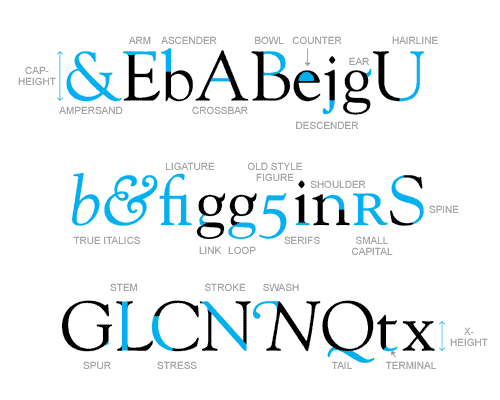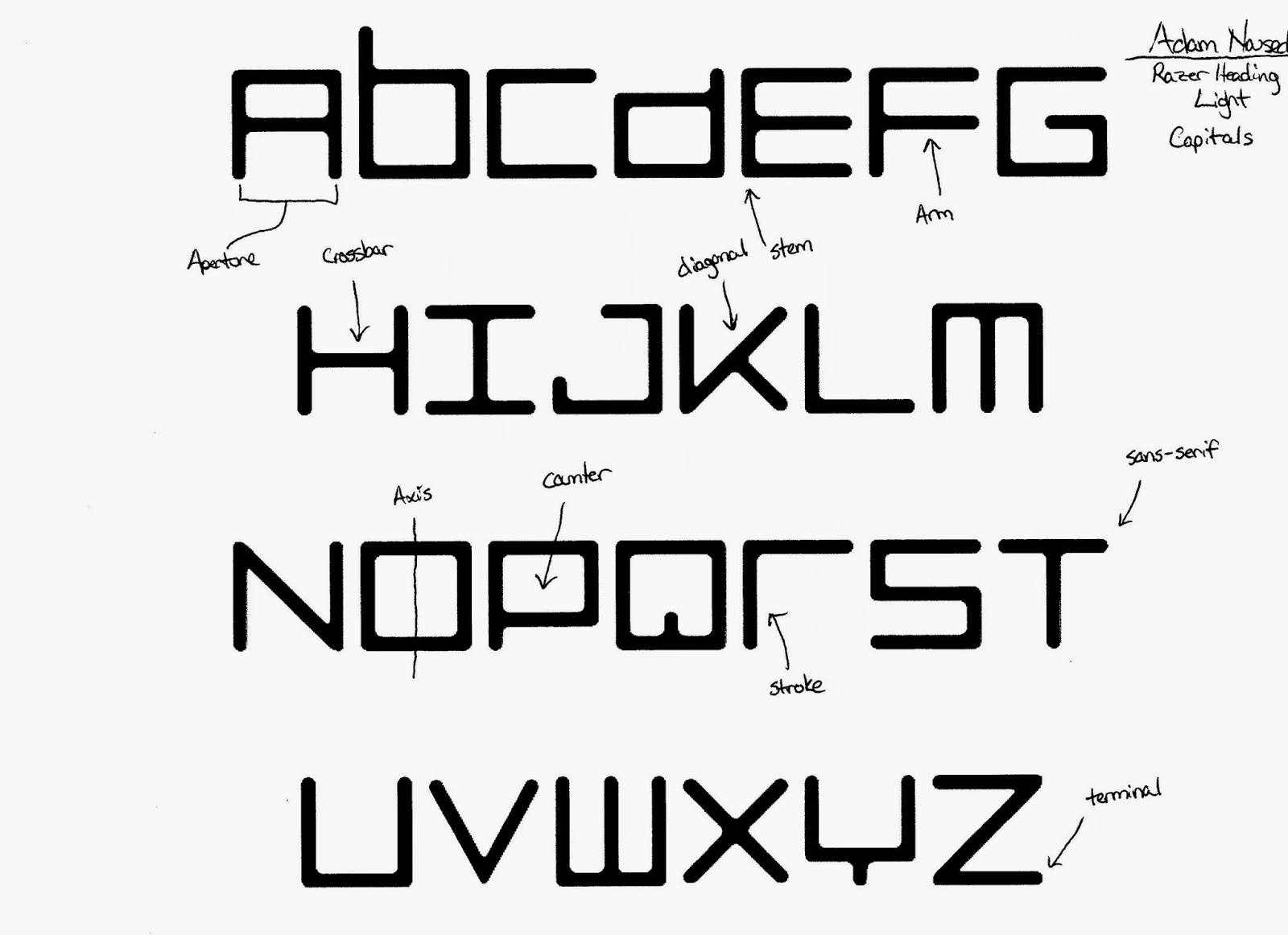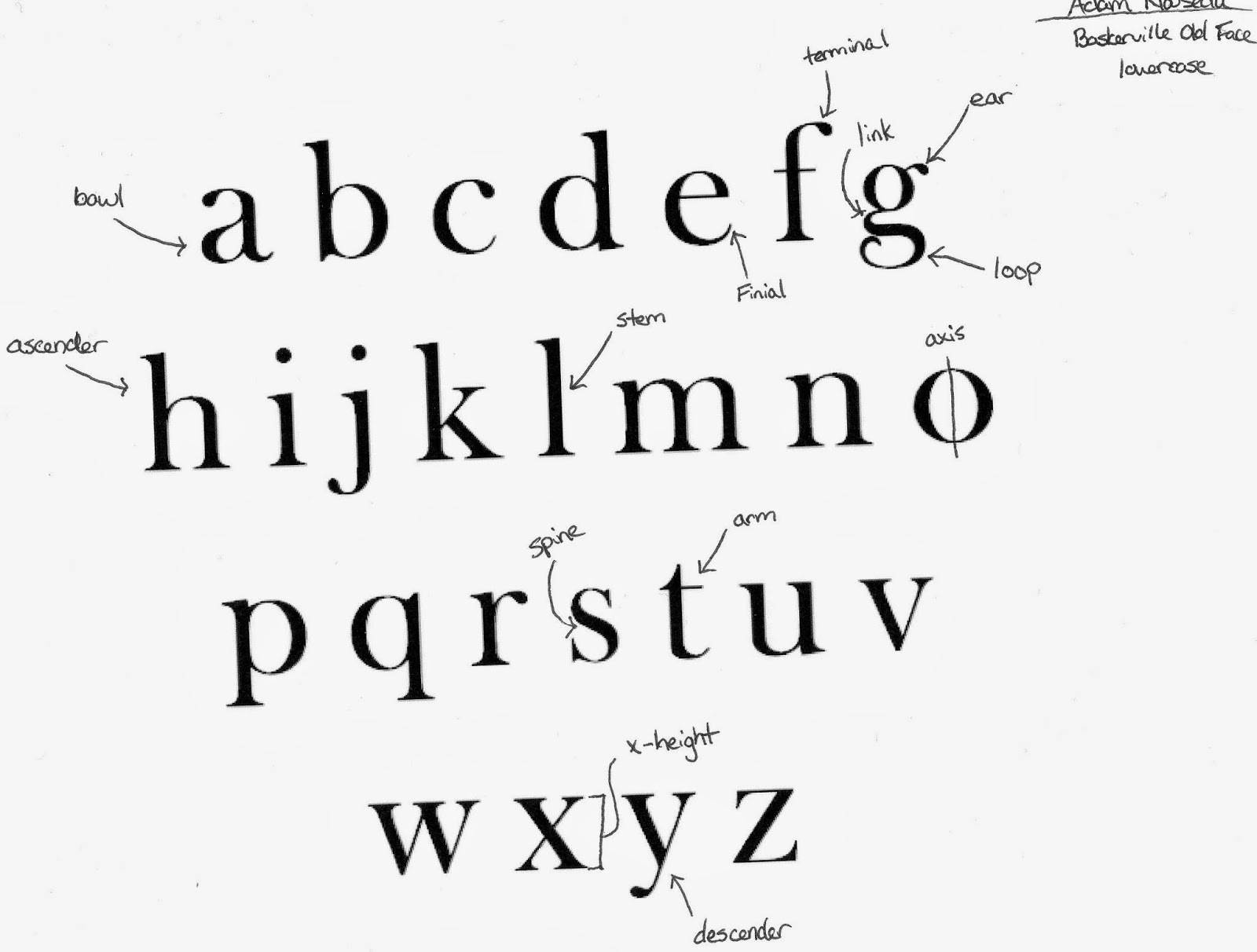
23+ Serif Font Anatomy Potoshop. Serif typefaces are among some of the oldest modern typefaces. A visual guide to the anatomy of typography infographic. In font anatomy, a character's arm is the part of the letter that reaches up or out. Not the answer you're looking for? Serifs come in two styles: Now that you understand each font what one do you use? Many serif fonts are beautifully designed and add a distinctive touch wherever. Strokes may be straight, as in k l v w x z, or curved. The serifs make it easy for the eye to travel over the text. Fonts with serifs are particularly useful for large blocks of text. It's attached on one end and free on the other and if a font has a swash, it will usually be a serif font that's also italicized. The strokes are the components of a letterform. Brackets are the supportive curves which connect the serif. How do you tell one typeface from another? Typeface anatomy describes the graphic elements that make up letters in a typeface.
Typedia Learn Anatomy Of A Typeface. Not the answer you're looking for? How do you tell one typeface from another? Strokes may be straight, as in k l v w x z, or curved. Typeface anatomy describes the graphic elements that make up letters in a typeface. Serifs come in two styles: Now that you understand each font what one do you use? Serif typefaces are among some of the oldest modern typefaces. It's attached on one end and free on the other and if a font has a swash, it will usually be a serif font that's also italicized. A visual guide to the anatomy of typography infographic. Many serif fonts are beautifully designed and add a distinctive touch wherever. The strokes are the components of a letterform. Brackets are the supportive curves which connect the serif. Fonts with serifs are particularly useful for large blocks of text. The serifs make it easy for the eye to travel over the text. In font anatomy, a character's arm is the part of the letter that reaches up or out.
Now that you understand each font what one do you use? Classifying fonts can help you decide which style to choose and what combinations to use for your next project. Serif typefaces are among some of the oldest modern typefaces. Messy anatomy is the character of this font which makes this font. It was designed to be metrically. Many serif fonts are beautifully designed and add a distinctive touch wherever. The anatomy of typography involves a bit of both worlds:
Fonts with serifs are particularly useful for large blocks of text. Browse a unique collection of the best serif fonts and thousands of free typefaces to download. Now that you understand each font what one do you use? Typeface anatomy describes the graphic elements that make up letters in a typeface. Fonts with serifs are particularly useful for large blocks of text. See more ideas about typography design, font anatomy, graphic design typography. See more ideas about font anatomy, type anatomy, anatomy of typography. Classifying fonts can help you decide which style to choose and what combinations to use for your next project. While serif fonts are known to be more traditional, sans serif fonts bring that much needed the fonts are all listed as free to use for personal and commercial uses, so let your creativity run wild. It was designed to be metrically. Not the answer you're looking for? The serifs make it easy for the eye to travel over the text. Hellwolf typeface is a serif font designed for halloween. Strokes may be straight, as in k l v w x z, or curved. When text is rendered by a computer, sometimes there will be characters in the text that can not be displayed, because no font that supports them is available to the computer. The decorative stroke that defines serif fonts gives each individual sans serif fonts have been known by many other names, including gothic: These serif fonts are typically used in newspapers, because they make reading quick and easy. Grey's anatomy is an american medical drama television series that premiered on march 27, 2005, on american broadcasting company (abc). Browse by alphabetical listing, by style, by author or by popularity. 1 2 3 4 5 6 7 8 9 10. Browse other questions tagged fonts typography or ask your own question. Archive of freely downloadable fonts. Every font is free to download! ✓ click to find the best 4 free fonts in the anatomy style. Bonange basic serif font is a bold and elegant serif font. The strokes are the components of a letterform. This font is equipped with uppercase, lowercase, numbers, punctuation, and several variations on each character. Serifs come in two styles: Messy anatomy is the character of this font which makes this font. A visual guide to the anatomy of typography infographic. Font anatomy is a highly captivating part of typography.
Type Anatomy A Visual Guide To The Parts Of Letters. A visual guide to the anatomy of typography infographic. The serifs make it easy for the eye to travel over the text. Strokes may be straight, as in k l v w x z, or curved. Serif typefaces are among some of the oldest modern typefaces. Brackets are the supportive curves which connect the serif. Fonts with serifs are particularly useful for large blocks of text. It's attached on one end and free on the other and if a font has a swash, it will usually be a serif font that's also italicized. In font anatomy, a character's arm is the part of the letter that reaches up or out. How do you tell one typeface from another? Many serif fonts are beautifully designed and add a distinctive touch wherever. The strokes are the components of a letterform. Serifs come in two styles: Now that you understand each font what one do you use? Not the answer you're looking for? Typeface anatomy describes the graphic elements that make up letters in a typeface.
50 Anatomy History Of Type Ideas In 2020 Typography Lettering Typography Design. Now that you understand each font what one do you use? A visual guide to the anatomy of typography infographic. In font anatomy, a character's arm is the part of the letter that reaches up or out. Typeface anatomy describes the graphic elements that make up letters in a typeface. Not the answer you're looking for? Strokes may be straight, as in k l v w x z, or curved. Fonts with serifs are particularly useful for large blocks of text. It's attached on one end and free on the other and if a font has a swash, it will usually be a serif font that's also italicized. The serifs make it easy for the eye to travel over the text. How do you tell one typeface from another? Serif typefaces are among some of the oldest modern typefaces. Serifs come in two styles: Brackets are the supportive curves which connect the serif. The strokes are the components of a letterform. Many serif fonts are beautifully designed and add a distinctive touch wherever.
Font anatomy is a highly captivating part of typography.
50 Anatomy History Of Type Ideas In 2020 Typography Lettering Typography Design. Serifs come in two styles: It's attached on one end and free on the other and if a font has a swash, it will usually be a serif font that's also italicized. The strokes are the components of a letterform. A visual guide to the anatomy of typography infographic. Strokes may be straight, as in k l v w x z, or curved. Typeface anatomy describes the graphic elements that make up letters in a typeface. Fonts with serifs are particularly useful for large blocks of text. Many serif fonts are beautifully designed and add a distinctive touch wherever. Serif typefaces are among some of the oldest modern typefaces. How do you tell one typeface from another? The serifs make it easy for the eye to travel over the text. Now that you understand each font what one do you use? Brackets are the supportive curves which connect the serif. Not the answer you're looking for? In font anatomy, a character's arm is the part of the letter that reaches up or out.
Tipografi Aplikatif Anatomi Huruf Ir Kamil Rusdi Abdullah M Si Modul Ke 04fakultas Fakultas Desain Dan Seni Kreatif Program Studi Desain Produk Pdf Download Gratis. Brackets are the supportive curves which connect the serif. Not the answer you're looking for? Fonts with serifs are particularly useful for large blocks of text. It's attached on one end and free on the other and if a font has a swash, it will usually be a serif font that's also italicized. Serifs come in two styles: The strokes are the components of a letterform. Many serif fonts are beautifully designed and add a distinctive touch wherever. The serifs make it easy for the eye to travel over the text. Now that you understand each font what one do you use? Typeface anatomy describes the graphic elements that make up letters in a typeface. Strokes may be straight, as in k l v w x z, or curved. In font anatomy, a character's arm is the part of the letter that reaches up or out. Serif typefaces are among some of the oldest modern typefaces. How do you tell one typeface from another? A visual guide to the anatomy of typography infographic.
Brackets are the supportive curves which connect the serif.
Anatomy Of A Character Fonts Com Fonts Com. In font anatomy, a character's arm is the part of the letter that reaches up or out. How do you tell one typeface from another? Now that you understand each font what one do you use? Strokes may be straight, as in k l v w x z, or curved. A visual guide to the anatomy of typography infographic. Not the answer you're looking for? Fonts with serifs are particularly useful for large blocks of text. The serifs make it easy for the eye to travel over the text. Serif typefaces are among some of the oldest modern typefaces. Brackets are the supportive curves which connect the serif. It's attached on one end and free on the other and if a font has a swash, it will usually be a serif font that's also italicized. Many serif fonts are beautifully designed and add a distinctive touch wherever. The strokes are the components of a letterform. Typeface anatomy describes the graphic elements that make up letters in a typeface. Serifs come in two styles:
Type Anatomy A Visual Guide To The Parts Of Letters. It's attached on one end and free on the other and if a font has a swash, it will usually be a serif font that's also italicized. How do you tell one typeface from another? A visual guide to the anatomy of typography infographic. Brackets are the supportive curves which connect the serif. Fonts with serifs are particularly useful for large blocks of text. Many serif fonts are beautifully designed and add a distinctive touch wherever. Strokes may be straight, as in k l v w x z, or curved. Typeface anatomy describes the graphic elements that make up letters in a typeface. Serif typefaces are among some of the oldest modern typefaces. In font anatomy, a character's arm is the part of the letter that reaches up or out. Now that you understand each font what one do you use? Not the answer you're looking for? Serifs come in two styles: The strokes are the components of a letterform. The serifs make it easy for the eye to travel over the text.
Classifying fonts can help you decide which style to choose and what combinations to use for your next project. Many serif fonts are beautifully designed and add a distinctive touch wherever. When text is rendered by a computer, sometimes there will be characters in the text that can not be displayed, because no font that supports them is available to the computer. Download free serif fonts for commercial and personal use. An educational poster intended to highlight the anatomical structure of a typeface. In font anatomy, a character's arm is the part of the letter that reaches up or out. Brackets are the supportive curves which connect the serif. While serif fonts are known to be more traditional, sans serif fonts bring that much needed the fonts are all listed as free to use for personal and commercial uses, so let your creativity run wild. Bonange basic serif font is a bold and elegant serif font. Serif typefaces are among some of the oldest modern typefaces.